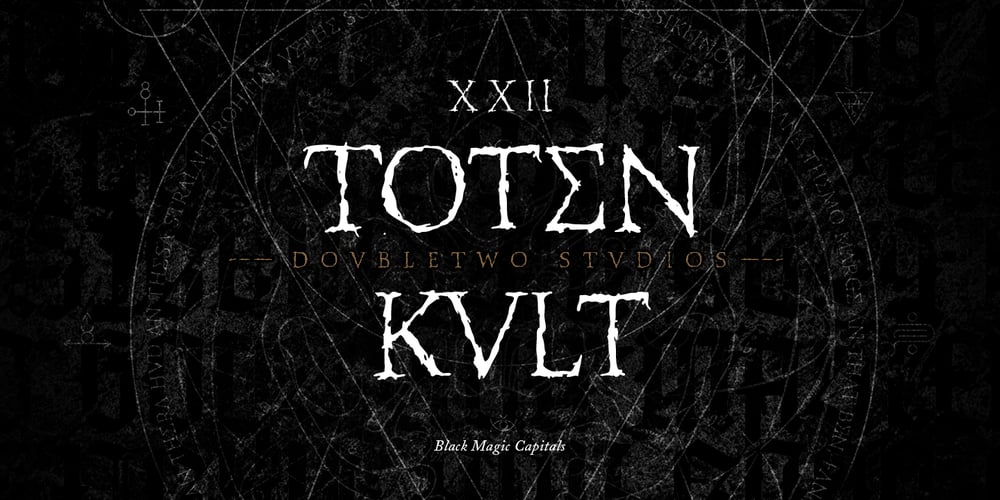
XXII Totenkult Font Family was designed by Lecter Johnson and published by Doubletwo Studios. XXII Totenkult contains 1 styles and family package options. The “XXII Totenkult” is inspired by the classical letterforms of old roman/renaissance typefaces and an ode to the decay. This is an allCapitals-font and the lowercase glyphs contain a variation of the uppercase. With activated “calt”-feature every second lowercase will be replaced by an alternate, this will give the font a more natural look. Detailed information here: XXII Totenkult on Behance.